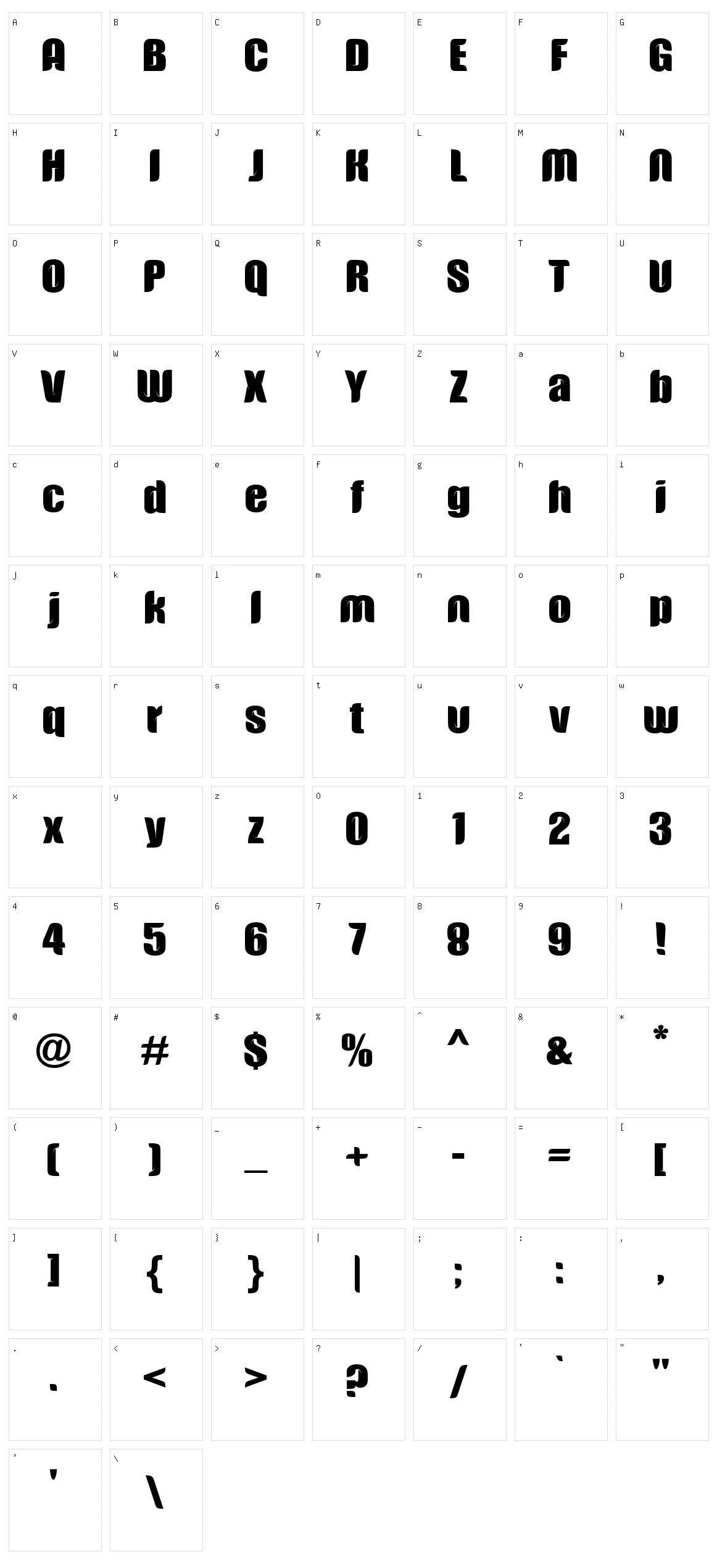
The free font Sakalangkong is carefully designed by Ahmad Zulfikar Ali, showcasing a thoughtful balance of creativity and usability and falls under the Groovy font style. When you download the ZIP file, it contains only 24.64 KB of font files, making it lightweight and quick to download. Please review the license details below to understand permitted usage and distribution rights. If license information is not available, we recommend using this font for personal projects only or contacting the author directly for commercial usage permissions.